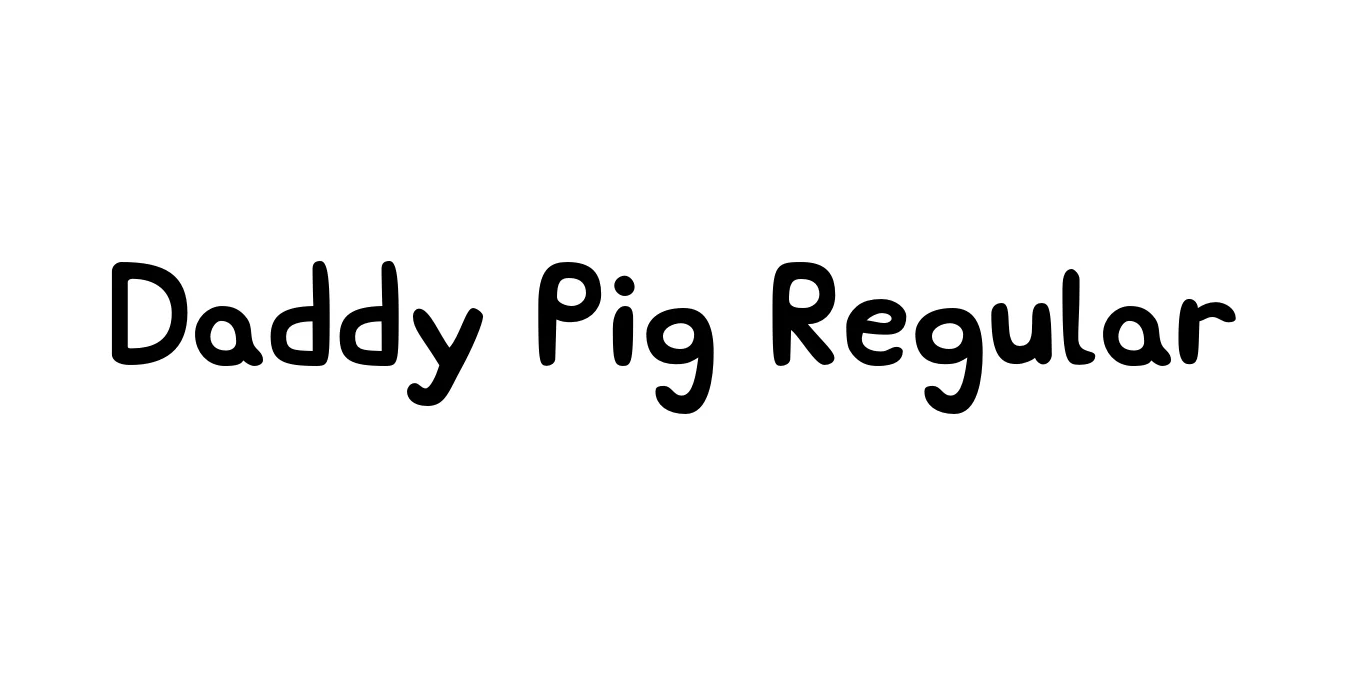
Daddy Pig Regular
Designed by Unknown Designer
Daddy Pig Regular is a whimsical and charming typeface heavily inspired by the visual style of the beloved children's animated series, Peppa Pig. Characterized by its soft, rounded edges and slightly irregular, hand-drawn appearance, the font exudes a sense of warmth and playfulness that appeals directly to young audiences. Its bold weight ensures that it remains highly readable even in busy graphic layouts, making it a favorite for nursery themes and early education materials.
Historically, this font emerged as a fan-made interpretation of the iconic lettering used in the show's branding and character dialogue. Because of its friendly aesthetic and organic feel, it has become a staple for designers working on birthday invitations, educational posters, and toy packaging. While primarily used for short bursts of text or titles, its distinct personality makes any project feel more approachable and fun.
Daddy Pig Regular Best Uses
Ideal for digital content, animations, and games targeted at toddlers and kids.
Perfect for birthday party banners, invitations, and themed event decor.
Suitable for custom t-shirts, lunchboxes, and stationery products.